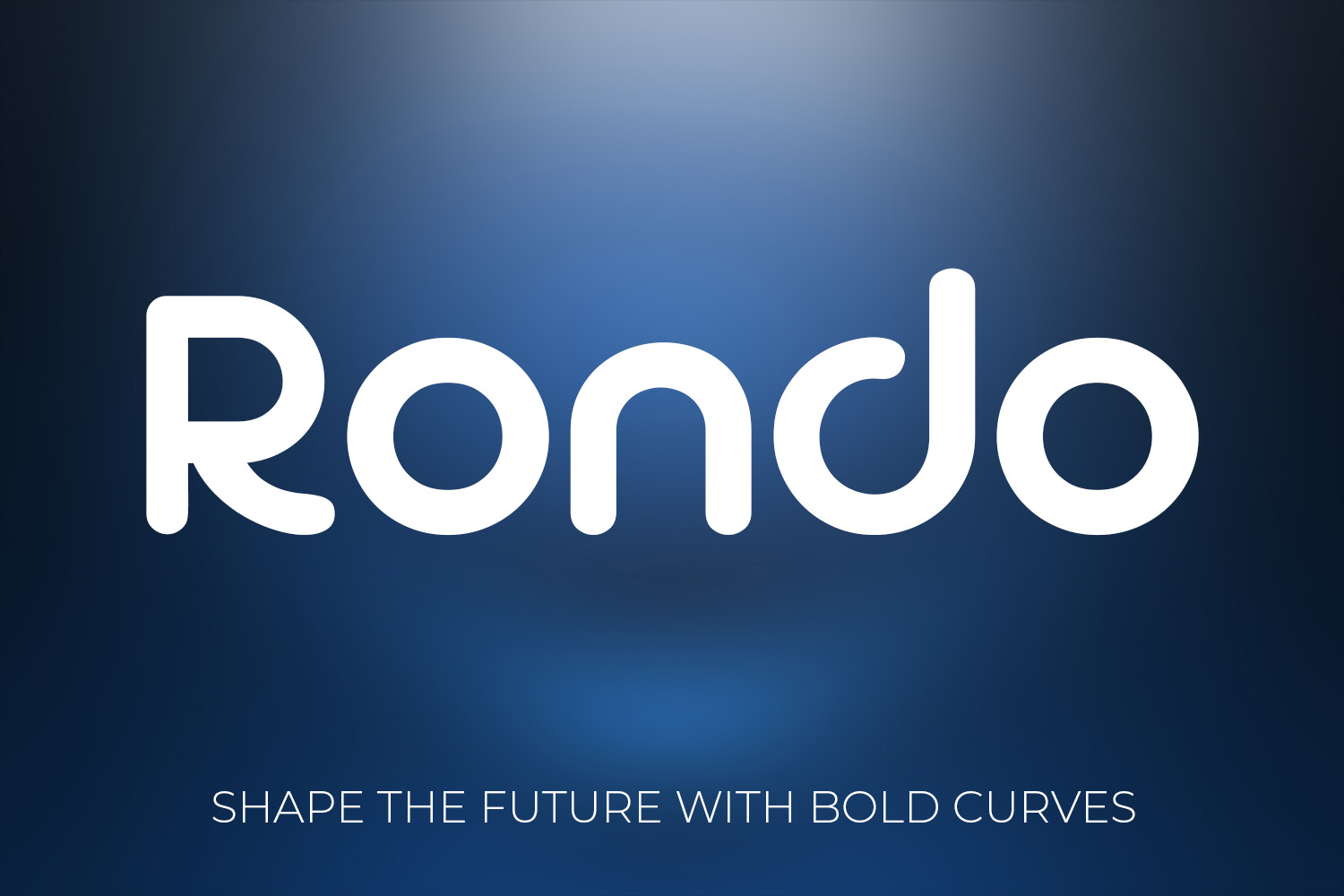
Rondo - Bold Geometric Display Font
Unlock the future of design with Rondo! Rondo is a stunning, premium, rounded sans-serif font that blends modern geometric precision with a friendly, approachable aesthetic. Perfectly crafted for designers who want their work to stand out, this font offers smooth, bold curves that look incredible in both digital and print formats.
Whether you're creating a high-end luxury logo, a futuristic tech interface, or eye-catching product packaging, Rondo provides the ultimate professional touch. Its versatile nature makes it the best choice for everything from bold gaming titles to elegant branding projects.
Why you’ll love Rondo:
- Modern & Futuristic: Perfect for tech, sci-fi, and minimalist designs.
- Versatile Branding: Ideal for logos, business cards, and social media.
- High-Impact Packaging: Looks amazing on supplement bottles, candy wraps, and skincare tubes.
- Craft-Friendly: Smooth edges make it perfect for cutting machines and physical crafts.